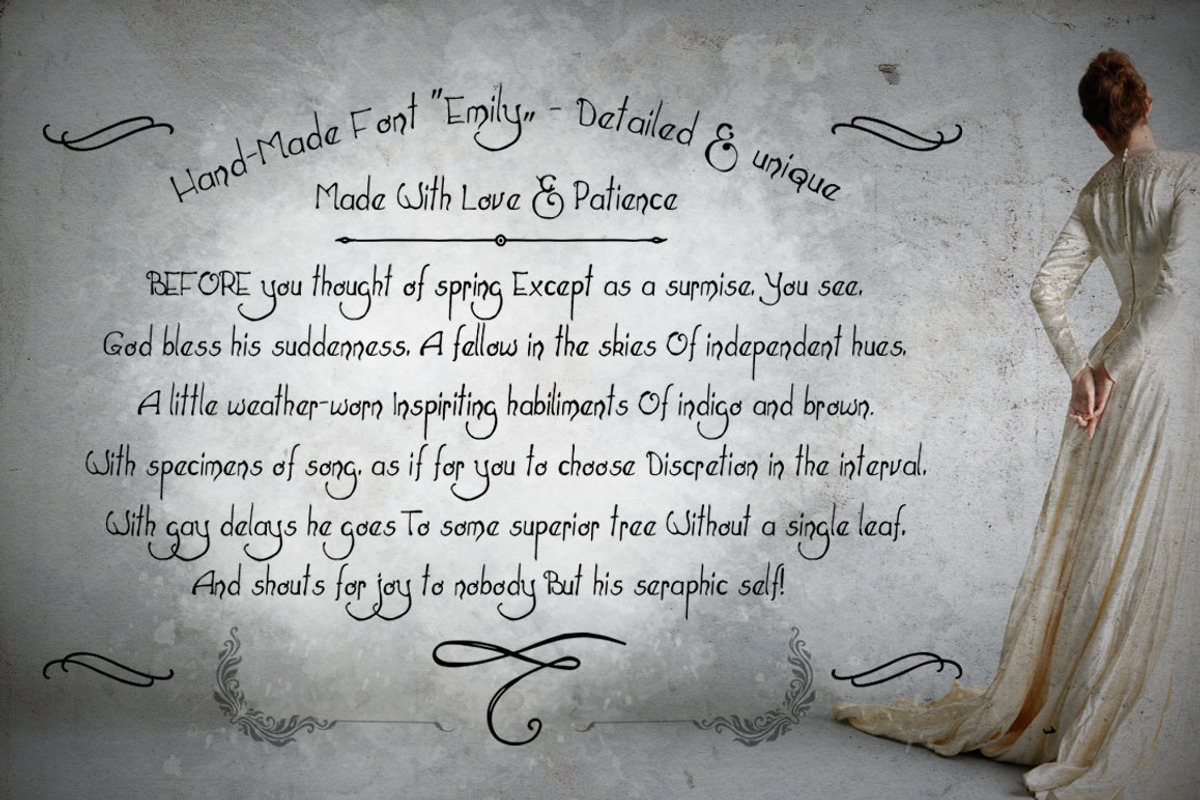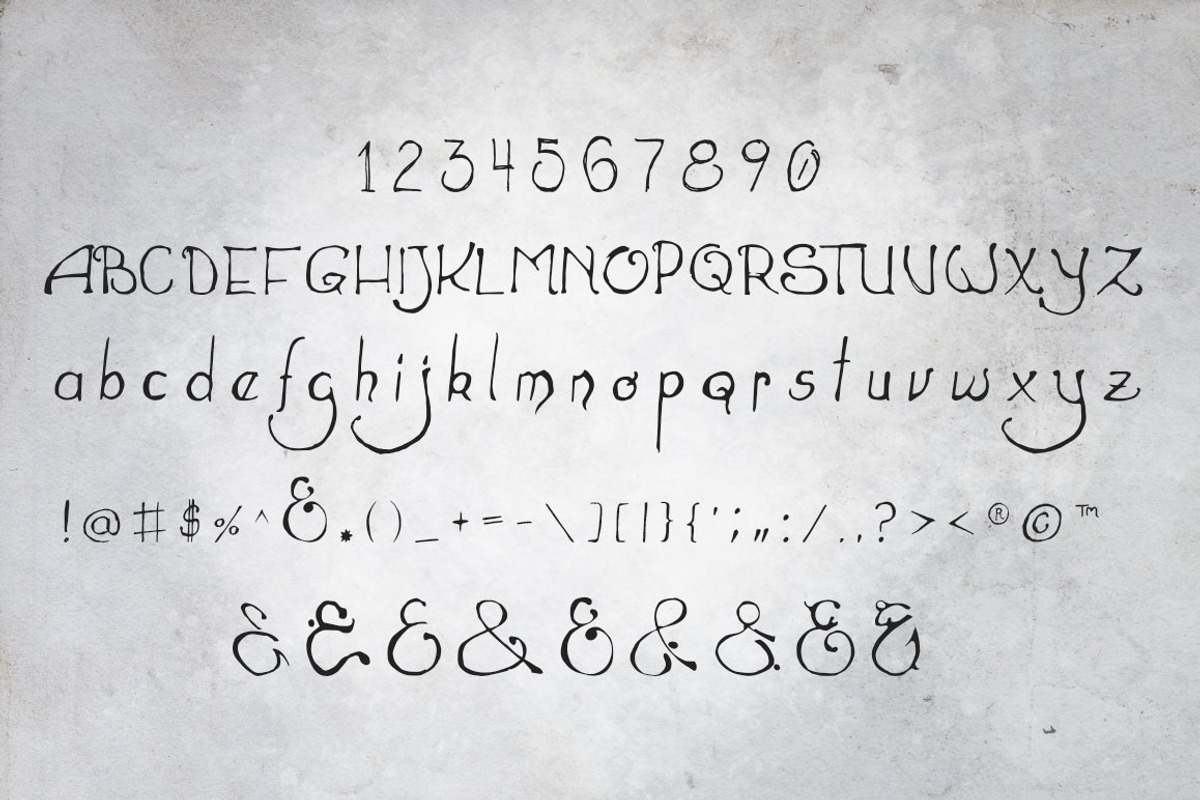
Hand drawn font “Emily”
Hand drawn font “Emily” by the little wonder shop is a font selected for branding, posters, packaging, typography.
- Hand drawn victorian font “Emily” with upper case characters, lower case characters, numbers, symbols and several different hand made “&” sy
Why Hand drawn font “Emily” is worth a look
Hand drawn font “Emily” by the little wonder shop fits naturally into Branding, posters, packaging, typography.